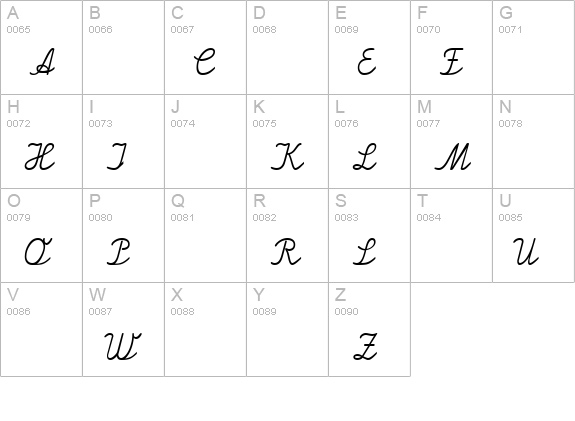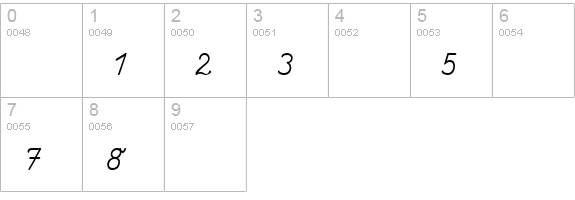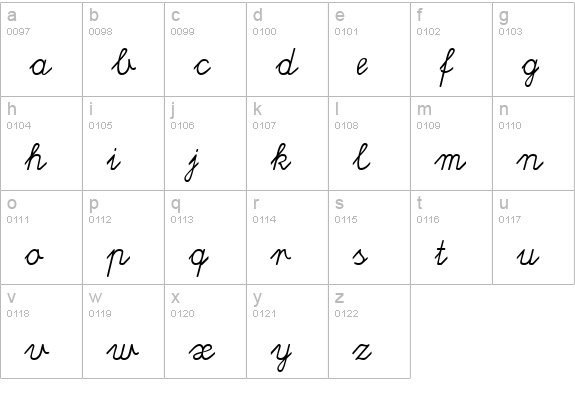
Lateinaus Font Details
Lateinaus is a beautifully designed font that captures the essence of elegance and sophistication. With its sleek lines and graceful curves, this font exudes a sense of timeless charm that is sure to enhance any design project. Whether used for headings, titles, or body text, Lateinaus adds a touch of class and refinement to any piece of work. What sets Lateinaus apart from other fonts is not only its stunning aesthetics but also its accessibility. This font is available for free download at FontsMarket.com, making it easily accessible to designers, artists, and creatives alike. With just a few clicks, you can have this remarkable font in your collection, ready to elevate your next design project. Lateinaus is a versatile font that can be used across a wide range of mediums. Its clear and legible letterforms make it perfect for both print and digital applications. Whether you're designing a logo, crafting a brochure, or creating a website, Lateinaus will effortlessly adapt to any context, ensuring a consistent and polished look throughout. The attention to detail in Lateinaus is truly remarkable. Each letter has been meticulously crafted to create a harmonious balance between style and readability. The spacing and kerning of the characters have been fine-tuned to perfection, ensuring a seamless flow of text that is easy on the eyes. In addition to its stunning design and accessibility, Lateinaus also offers a wide range of glyphs and ligatures, allowing for endless creative possibilities. Whether you're looking to add a unique flourish to your design or simply want to experiment with different typographic styles, Lateinaus has got you covered. So why wait? Download Lateinaus today, for free, at FontsMarket.com and unlock the potential of this exceptional font. Elevate your designs with its timeless elegance and make a lasting impression on your audience. With Lateinaus, the possibilities are endless, and the results are guaranteed to be nothing short of extraordinary.